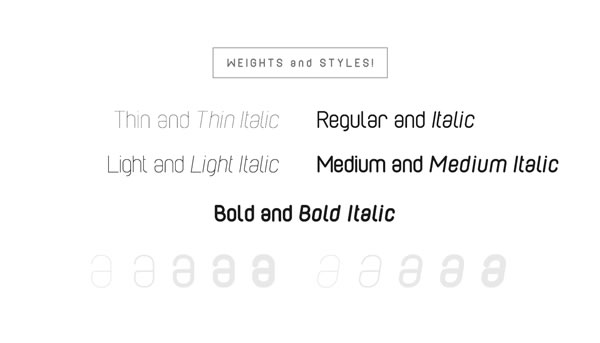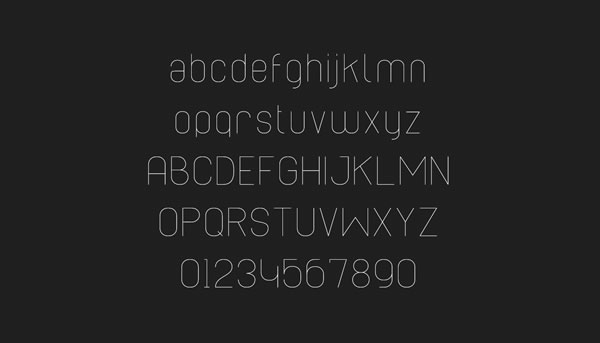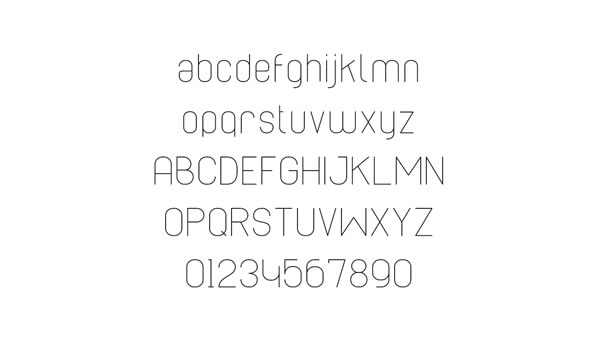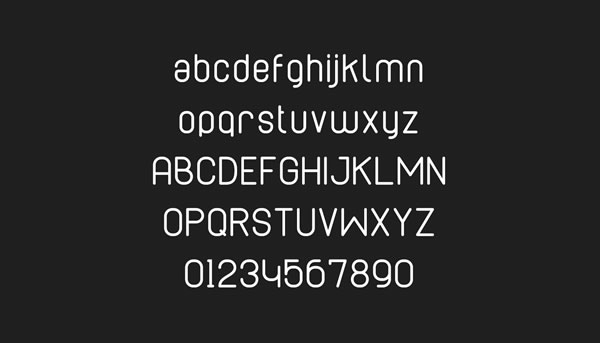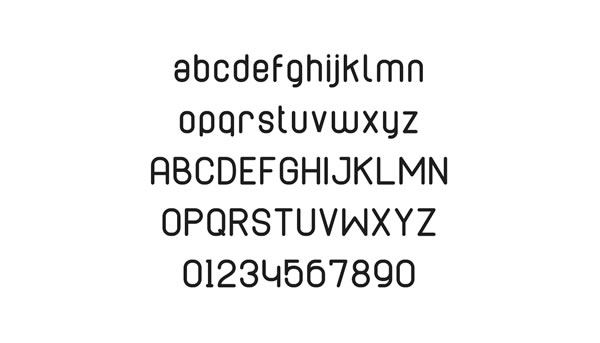
Discovering a New Classic: The Story Behind Cabo Rounded Family Font
I still remember the moment when a spark of creativity ignited the creation of Cabo Rounded Family Font. It started with a personal logo redesign, and I was determined to push the boundaries of my design skills. As I played around with shapes and strokes in Illustrator, I stumbled upon a style that felt both modern and timeless. The result was a unique aesthetic that caught my attention, and I couldn’t help but wonder if it could be transformed into a font.
That’s exactly what happened. I poured my heart and soul into creating the Cabo Rounded Family Font, and the outcome was nothing short of amazing. With each weight carefully crafted, this font family offers a versatile solution for designers seeking a modern, rounded look. From logos to body text, Cabo Rounded Family Font is sure to elevate any design project. Its clean lines, friendly feel, and diverse weight options make it an invaluable asset for creatives looking to add a touch of sophistication to their work.
Cabo Rounded Family Font Key Features
- Font Family: The Cabo Rounded Family Font is a collection of 12 fonts with different weights and styles, including Regular, Bold, Italic, and Bold Italic.
- Unique Characteristics: Features a unique rounded design, making it perfect for modern and sleek designs, while also being highly legible and easy to read.
- Language Support: Supports a wide range of languages, including Latin, Cyrillic, and Greek scripts, making it a versatile font for global applications.
Cabo Rounded Family Font Review
Overall, I was excited to dive into the Cabo Rounded Family Font and see what it has to offer. ✨
Here are some of the things I like:
- ✨ The rounded edges and smooth curves give this font a friendly and approachable feel, perfect for titles and headings.
- ✨ The family includes a wide range of weights, from light to bold, making it easy to find the perfect fit for your project.
- ✨ The font is highly legible, even at small sizes, making it ideal for digital applications.
However, I also encountered some limitations:
- ⚠️ The font may not be the best choice for formal or professional projects, as it can come across as a bit too casual.
- ⚠️ The light weights can be a bit too light and may require additional styling to make them stand out.
Overall, I think the Cabo Rounded Family Font is a solid choice for designers looking for a friendly and approachable font. While it may not be the best fit for every project, it’s definitely worth considering for titles, headings, and digital applications. With a little creativity and experimentation, you can get some great results with this font.
Getting the Most Out of Cabo Rounded Family Font
For optimal results, use Cabo Rounded Family Font in conjunction with a clean and minimalistic design aesthetic.
Experiment with different font sizes and styles to create visual interest and hierarchy.
Cabo Rounded Family Font is ideal for:
1. Branding and logos
2. Digital product design
3. Minimalistic and modern designs
Alternatives to Cabo Rounded Family Font
Lato is a sans-serif font that offers a clean and modern look. It is suitable for use in digital products, branding, and advertising materials. Lato has a similar rounded feel to Cabo Rounded Family Font but with a more geometric structure, making it a great alternative for designers looking for a more modern and sleek look.